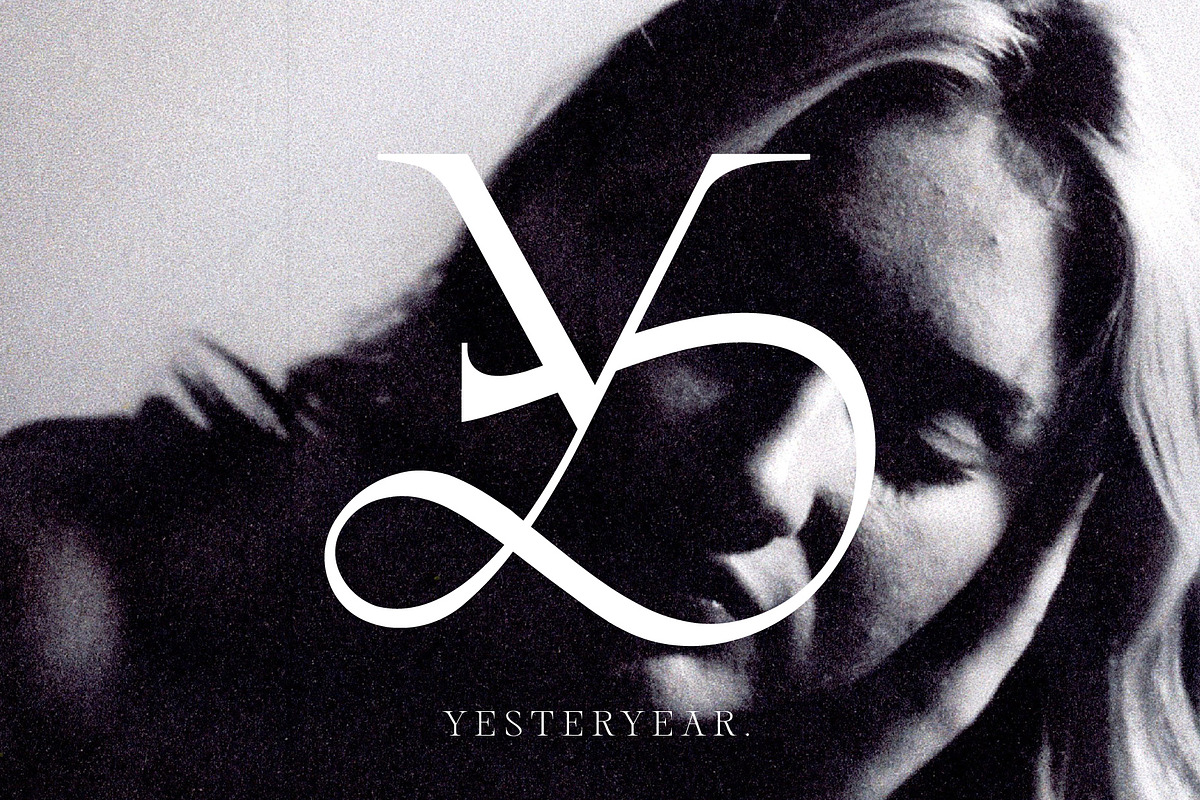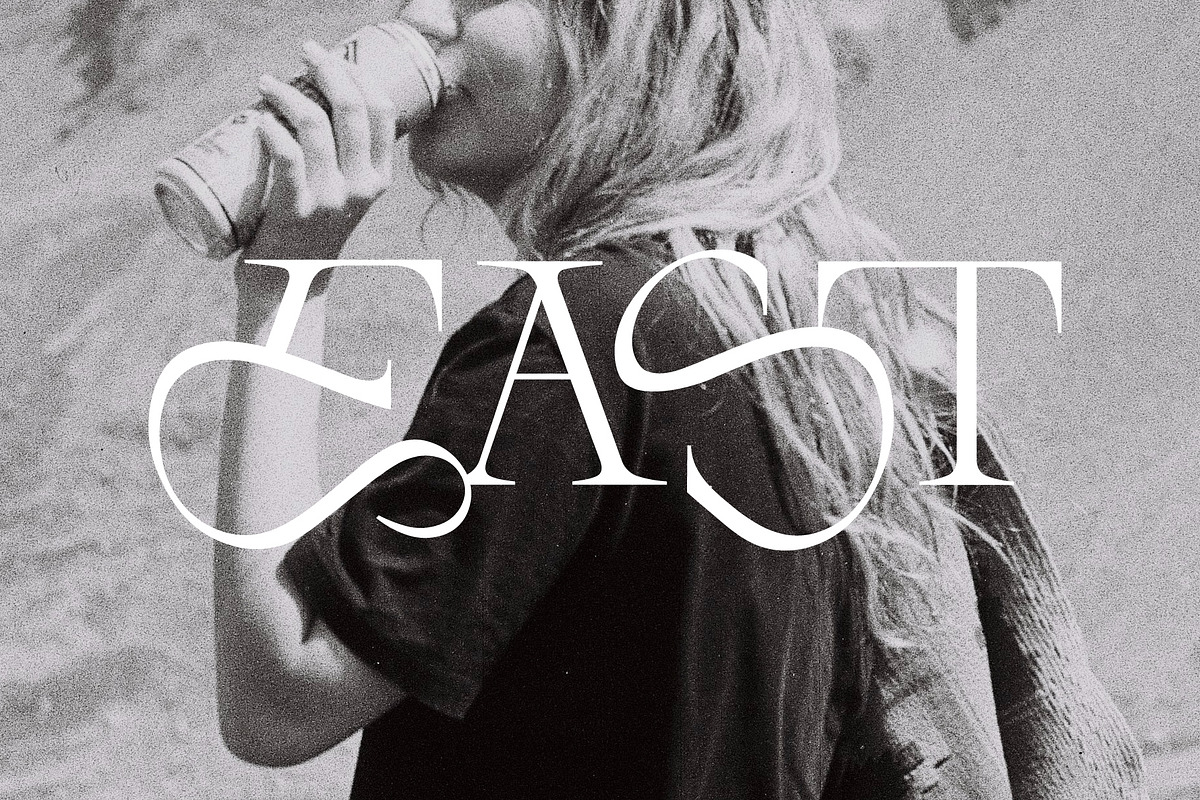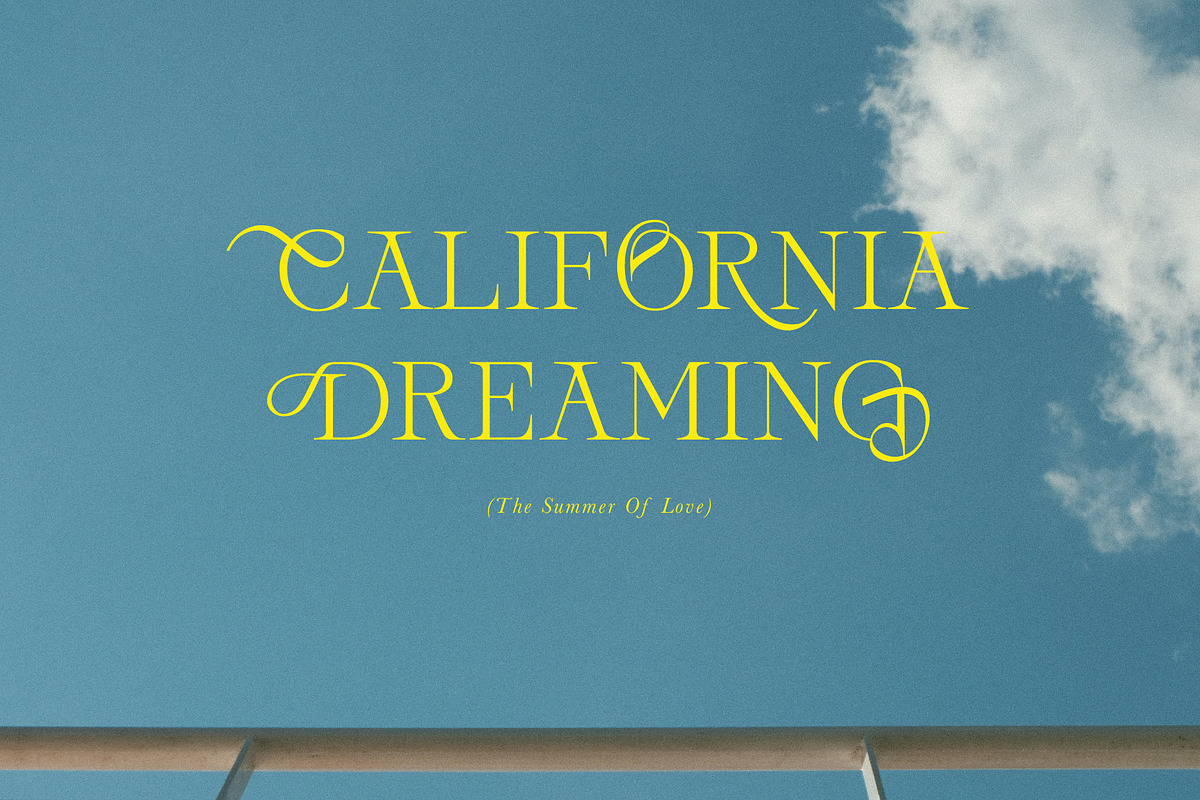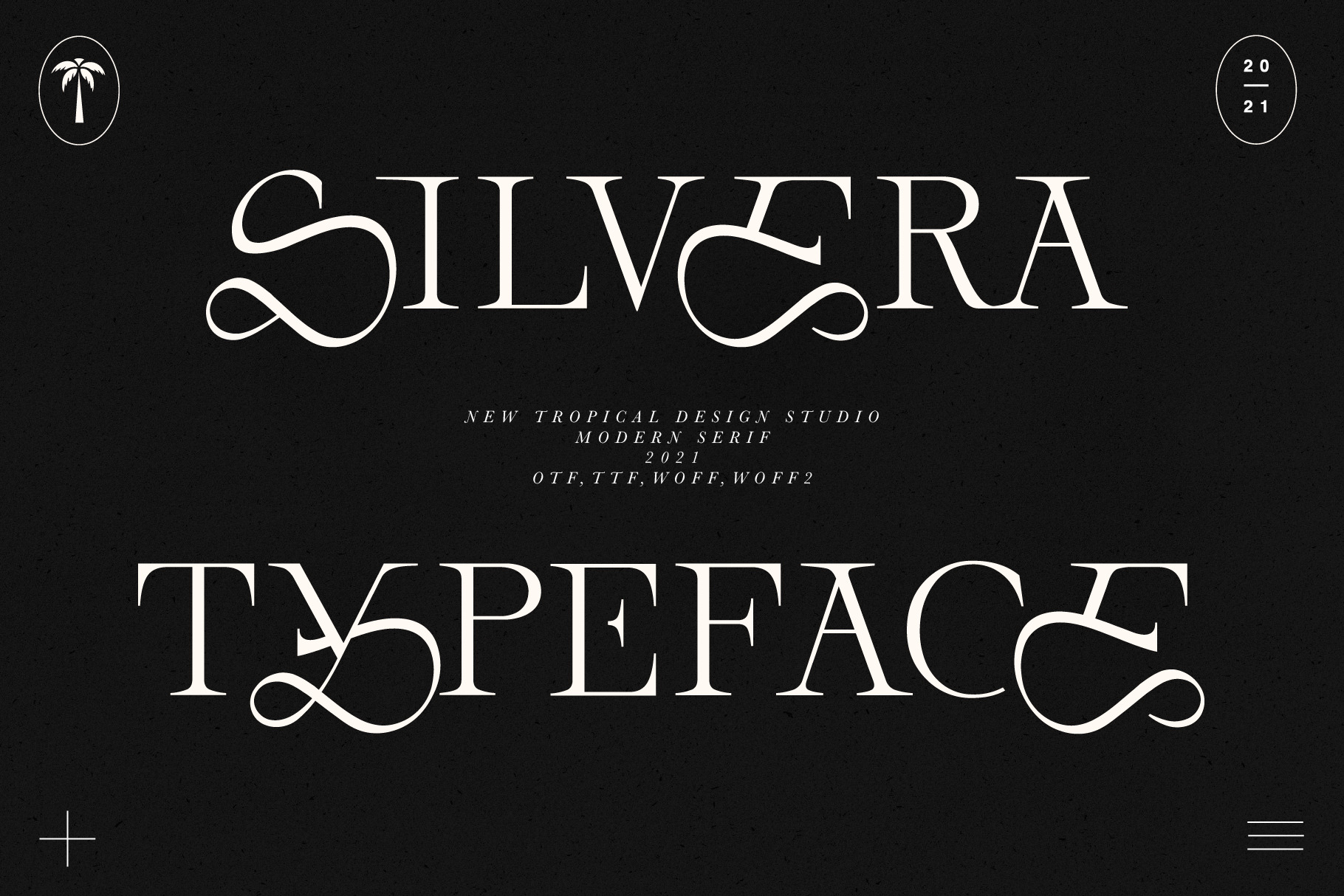
Silvera- Serif Typeface
Silvera is a unique and edgy serif typeface with loads of style. The ornate caps case if full of memorable glyphs that will make your work stand out. It includes lots of alternate letters in both cases that help you mix and match the ornate uppercase and the regular upper/lowercase.
- Dual uppercases, numbers, punctuation and graphic letters